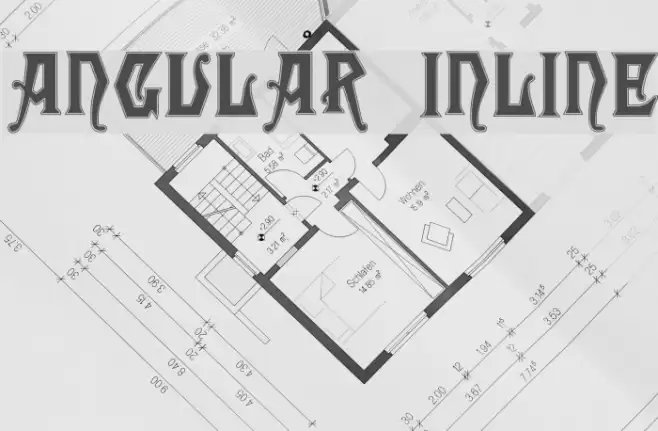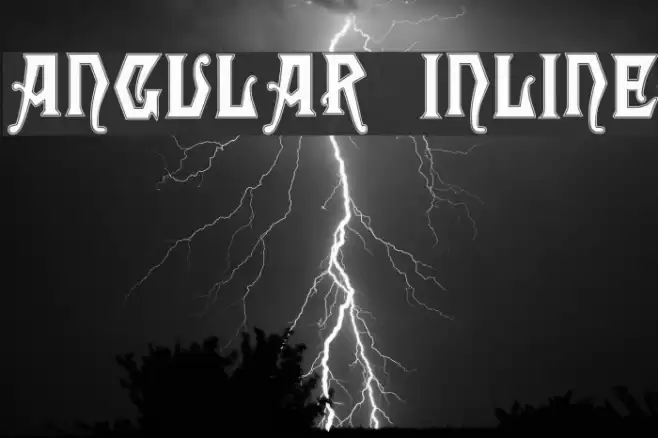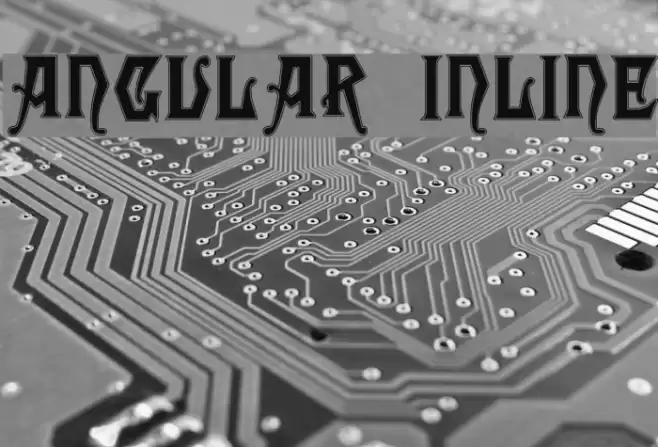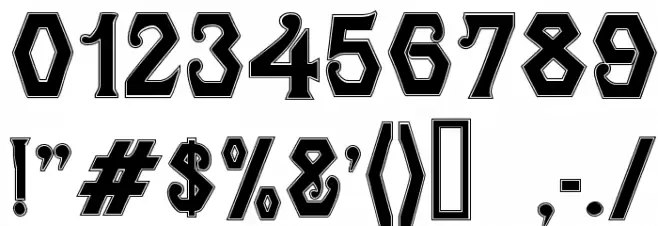
Angular Inline Font
Angular Inline Description
This font features a bold, angular design with a strong inline style that gives it a distinct, edgy appearance. The uppercase letters are characterized by sharp, geometric lines and a heavy weight, making them stand out prominently. The lowercase letters maintain the same angular aesthetic, providing consistency across the typeface. Numbers and special characters are equally bold and angular, ensuring a cohesive look throughout. The font's unique style is reminiscent of vintage signage or tattoo art, with a modern twist that makes it suitable for contemporary designs. The inline detail adds depth and dimension, enhancing its visual impact.
A bold, angular font with inline details, perfect for impactful designs from Uncategorized fonts.
- Proposed Projects: Ideal for logos, posters, album covers, and any project requiring a bold, eye-catching typeface.